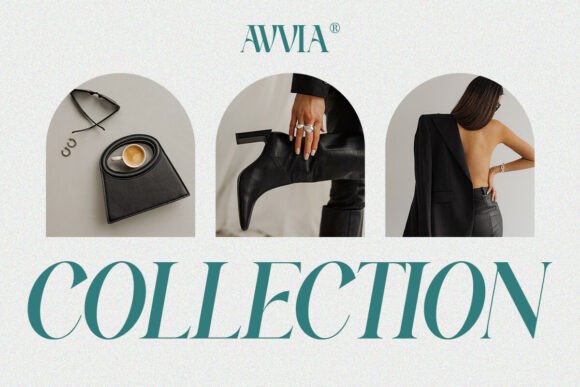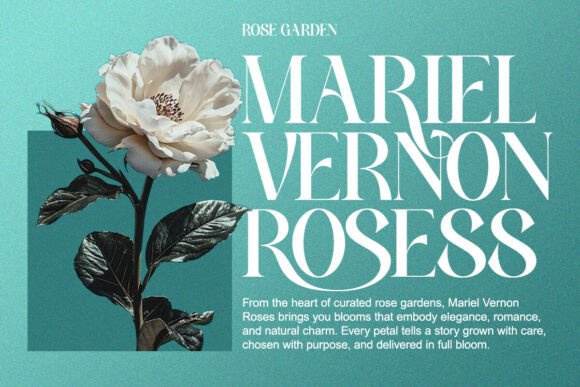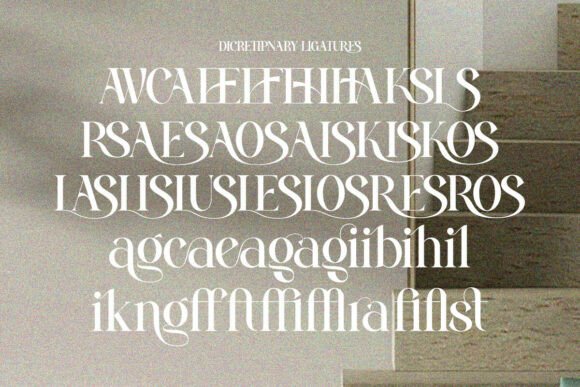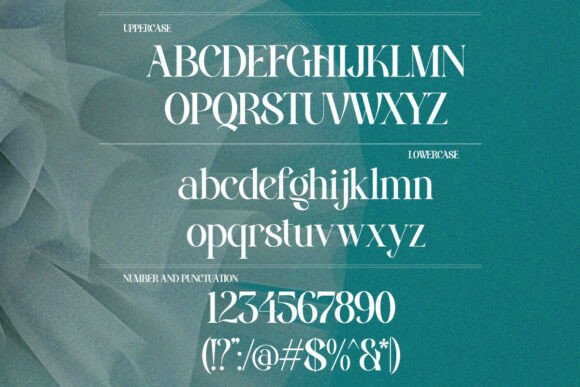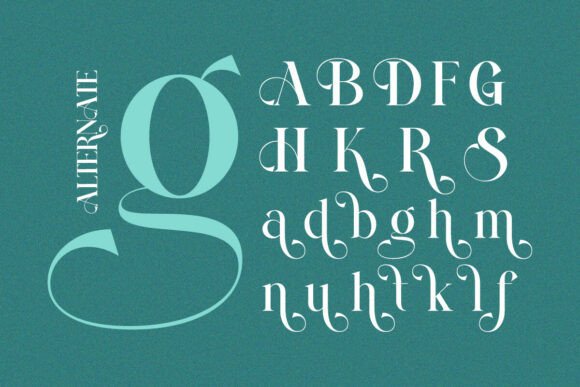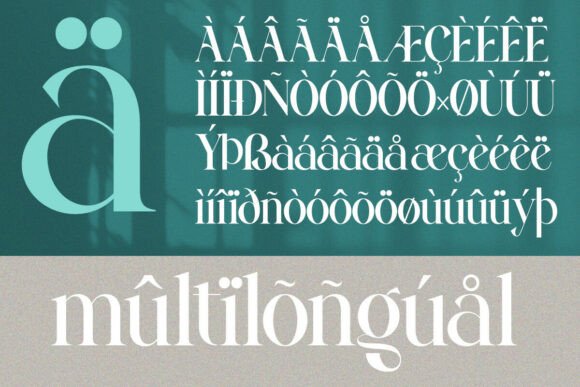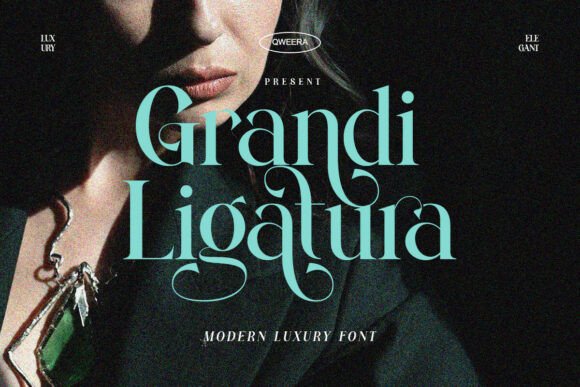
Introducing Grandi Ligatura: The Epitome of High-End Type Design
In the world of typography, a font can make all the difference in elevating a brand’s visual identity. Grandi Ligatura, a stylish serif font, is designed to bring a touch of luxury and sophistication to your designs. With its elegant curves and intricate ligatures, this typeface is perfect for those who want to make a statement.
A Blend of Classic and Modern
Grandi Ligatura seamlessly blends classic editorial style with a modern twist. The font features luxurious curves and elegant ligatures that radiate confidence and sophistication. The intricate stylistic alternates and graceful ligature combinations add a touch of uniqueness to your designs, making them stand out from the crowd.
The Perfect Choice for High-End Designs
Grandi Ligatura is the perfect choice for premium branding, high-fashion campaigns, beauty packaging, and bold editorial titles. Its elegant and refined aesthetic makes it an ideal choice for designers who want to create high-end designs that exude luxury and sophistication.
Grandi Ligatura is a versatile font that can be used in a variety of design applications. Whether you’re creating high-end fashion branding, jewelry and perfume packaging, editorial headlines, lookbooks, wedding monograms, or invitations, this font is sure to make a statement. It’s also perfect for logo design for luxury brands and modern minimalist design with a twist.
A Design Weapon for Elegance and Impact
Grandi Ligatura isn’t just a font; it’s a design weapon for elegance and impact. The font is designed to help you create stunning designs that leave a lasting impression. With its PUA-encoded feature, you can access all glyphs, swashes, and alternate characters with ease, allowing you to customize your creations to perfection.
Key Features of Grandi Ligatura
- Luxurious Curves and Elegant Ligatures: Grandi Ligatura features luxurious curves and elegant ligatures that add a touch of sophistication to your designs.
- Intricate Stylistic Alternates and Ligature Combinations: The font features intricate stylistic alternates and ligature combinations that make your designs stand out.
- PUA-Encoded: Grandi Ligatura is PUA-encoded, ensuring effortless access to all glyphs, swashes, and alternate characters.
- High-End Aesthetic: The font has a high-end aesthetic that makes it perfect for premium branding, high-fashion campaigns, and luxury designs.
Why Choose Grandi Ligatura?
Grandi Ligatura is the perfect choice for designers who want to create high-end designs that exude luxury and sophistication. The font’s elegant and refined aesthetic, versatility, and PUA-encoded feature make it an ideal choice for a variety of design applications.
In conclusion, Grandi Ligatura is a stylish serif font that is designed to elevate your visual identity with luxurious curves and elegant ligatures. With its high-end aesthetic, versatility, and PUA-encoded feature, it’s the perfect choice for designers who want to create stunning designs that leave a lasting impression.
Get ready to elevate your designs with Grandi Ligatura. Whether you’re a designer, craftsperson, or entrepreneur, this font is sure to help you create stunning designs that exude luxury and sophistication.